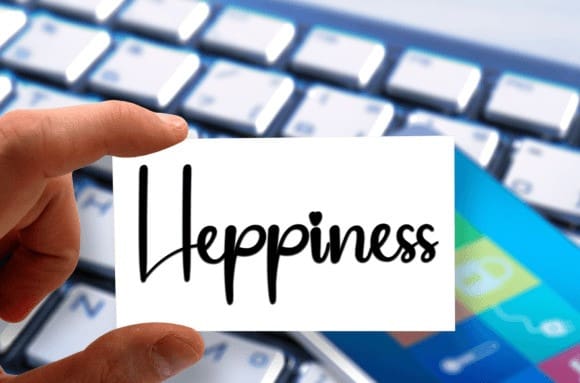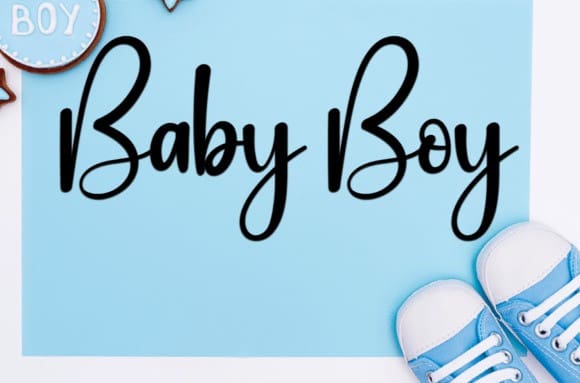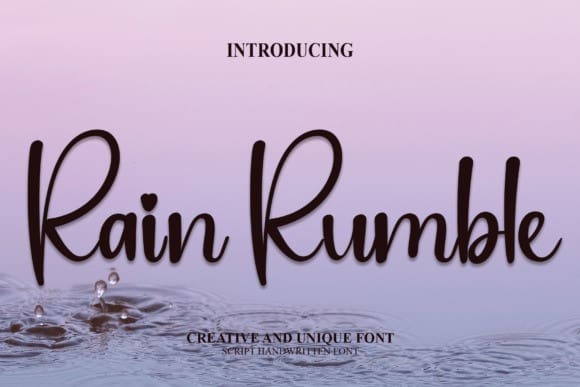
Rain Rumble Font
Rain Rumble Font is a fun and friendly handwritten font. Whether you’re using it for crafts, digital design, presentations, or creating greeting cards, this font has the potential to become your go-to font, no matter the occasion!